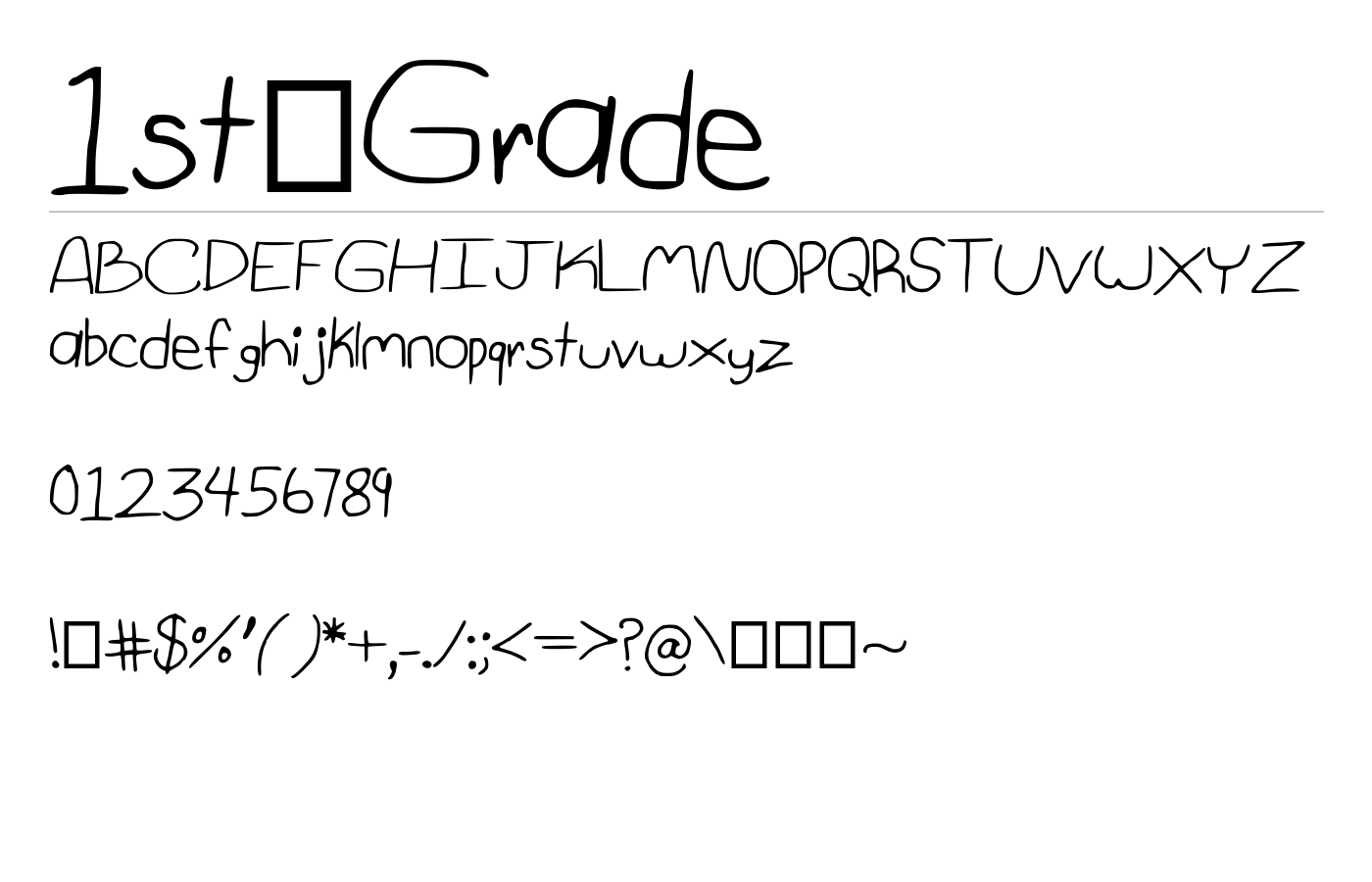
1st_Grade is a playful, hand-drawn sans serif font that mimics the look of children's handwriting with its irregular strokes and casual, friendly style. Its light weight and slightly narrow width, combined with a medium x-height, make it perfect for educational materials, children's books, and informal designs where a warm, approachable tone is desired. This font works best in headlines, logos, and creative projects aimed at young audiences or anyone looking for a charming, youthful touch.